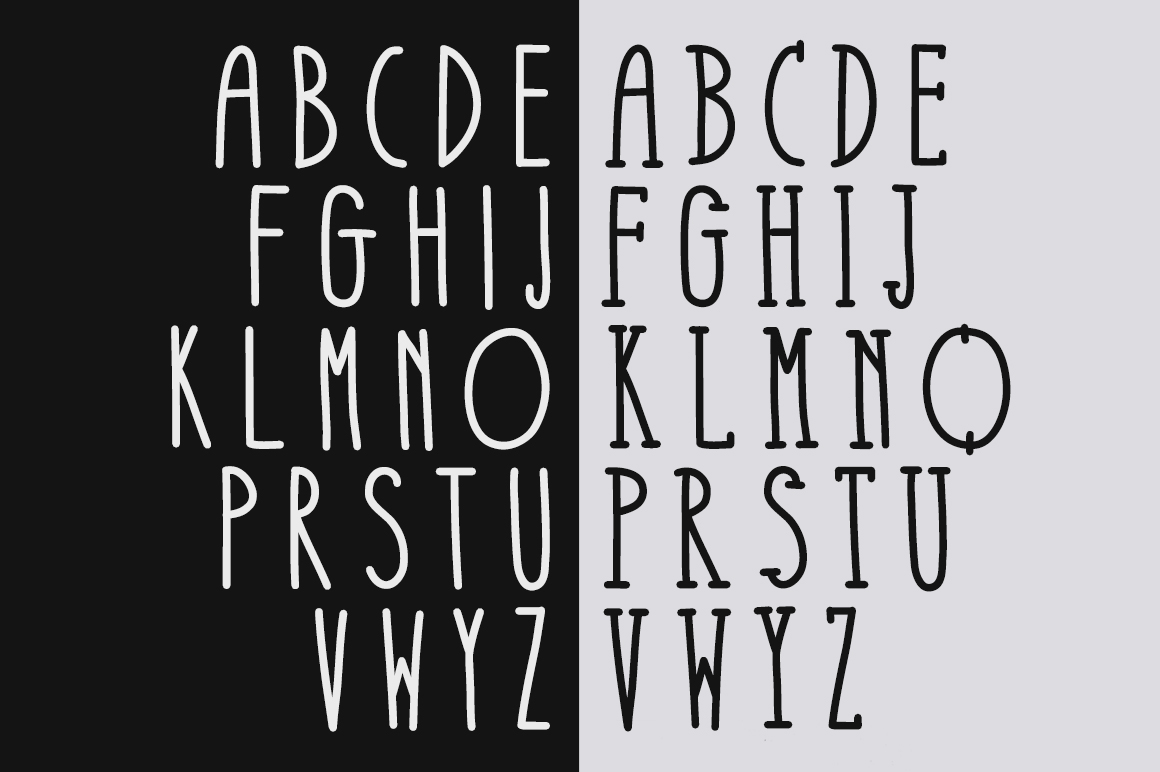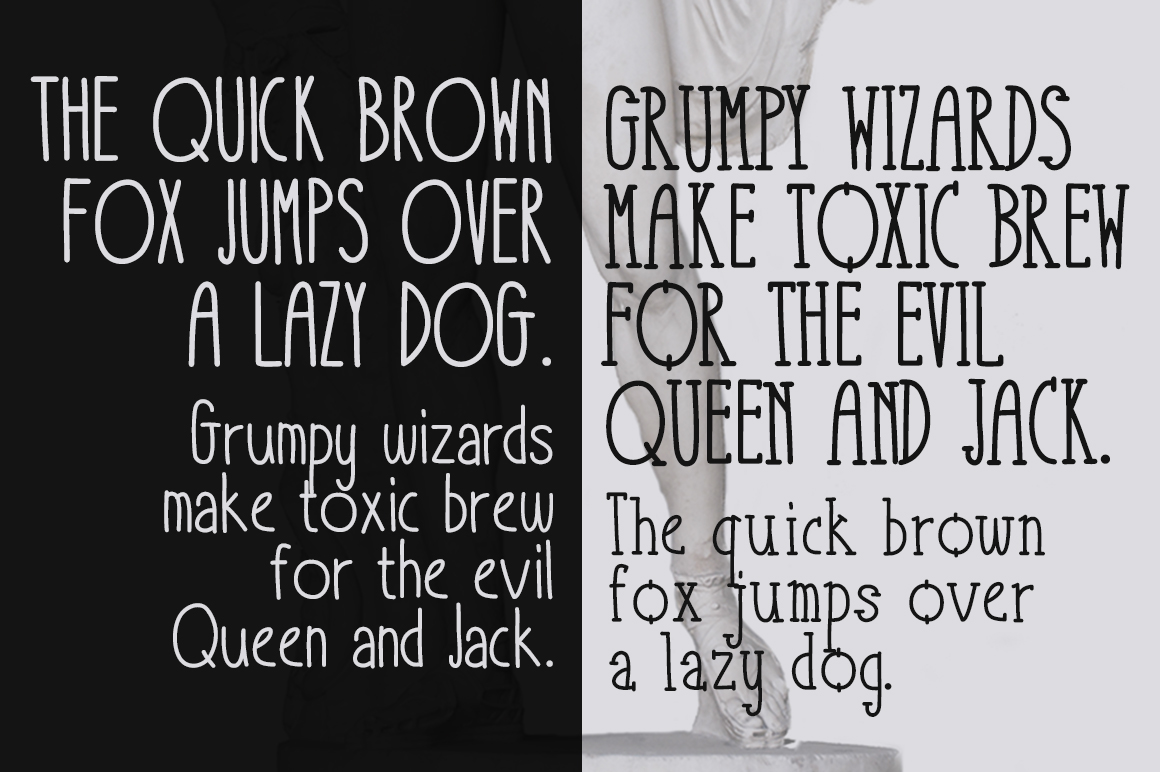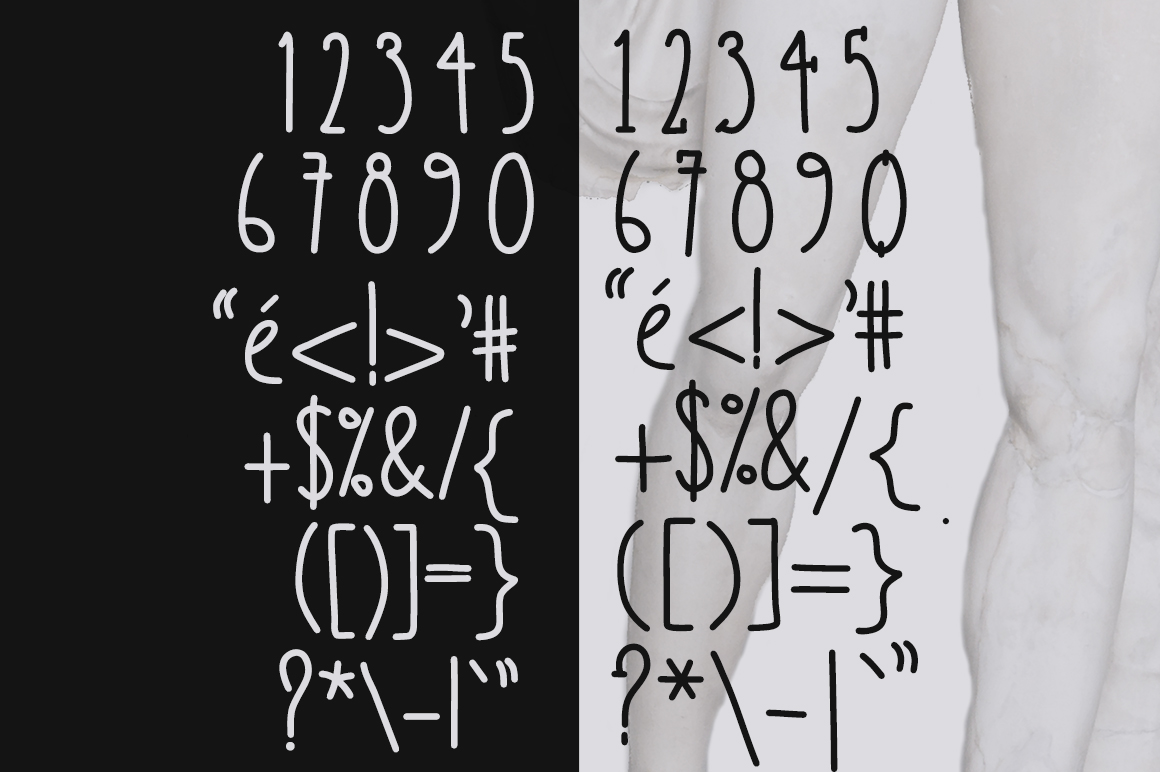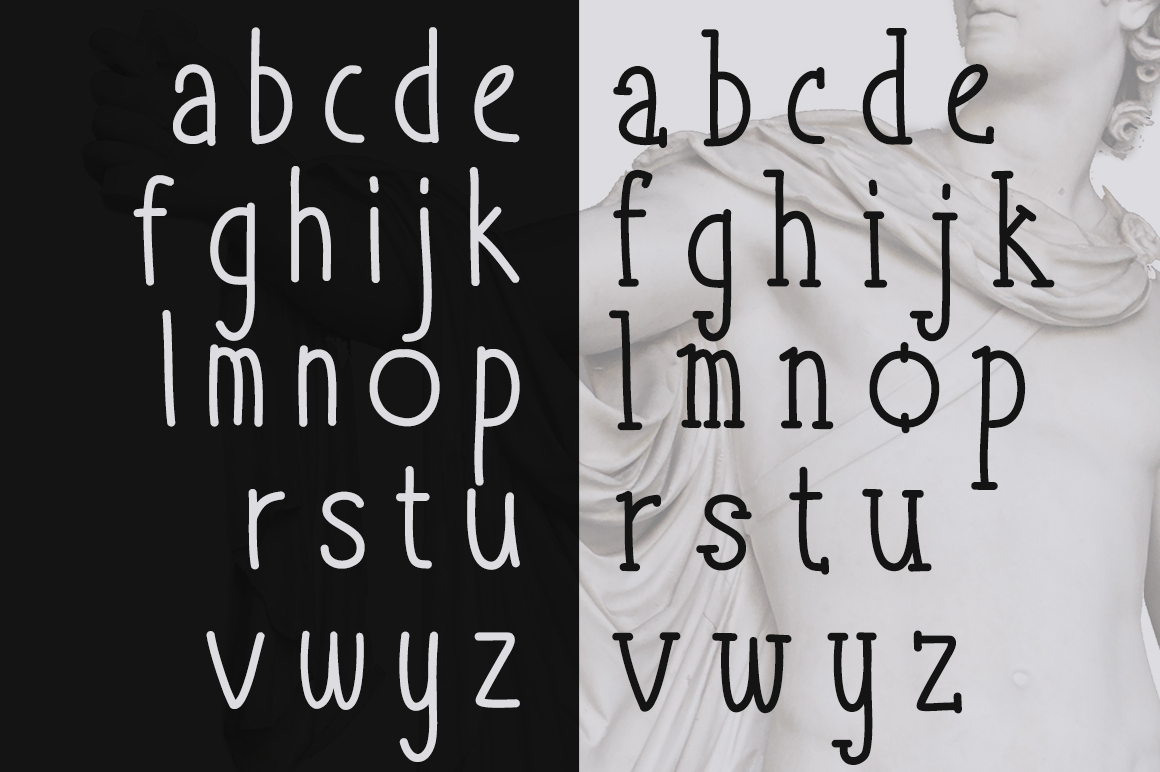
Take It or Leave It – Free Font
Take it or leave it! what a brave saying this font had! This handwriting font is ready to be added to your font collection! This font can be useful for many purposes, such as headline, apparel, poster, flyers and more!